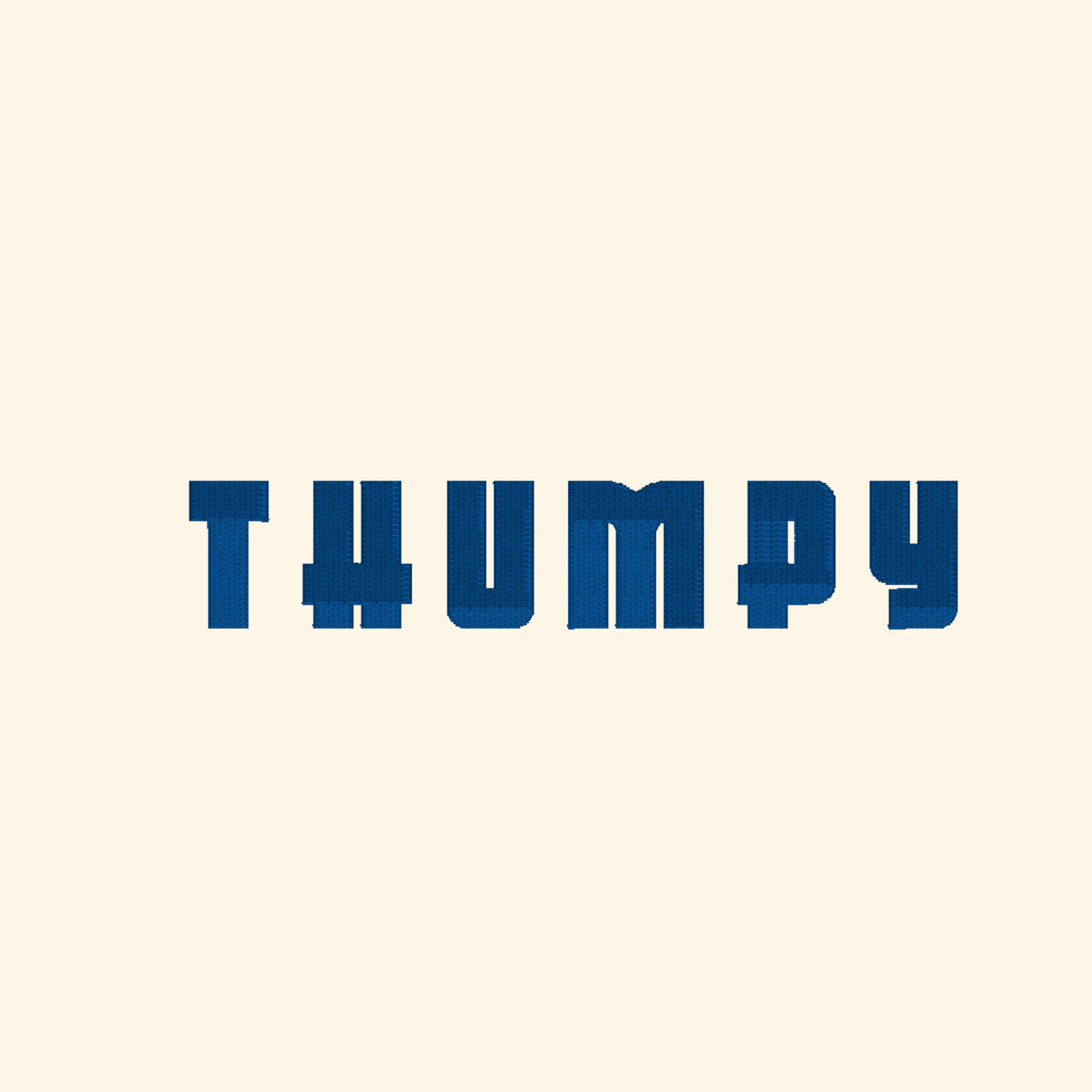
Thumpy - display embroidery font, Bold embroidery font, Machine embroidery font, 7 Formats + 7 Sizes
🪡Thumpy - premium embroidery font.
Take your projects to the next dimension with Thumpy - professional machine embroidery alphabet! Specially digitized for high-impact results, this font is the perfect choice for creating any item that requires embroidery.